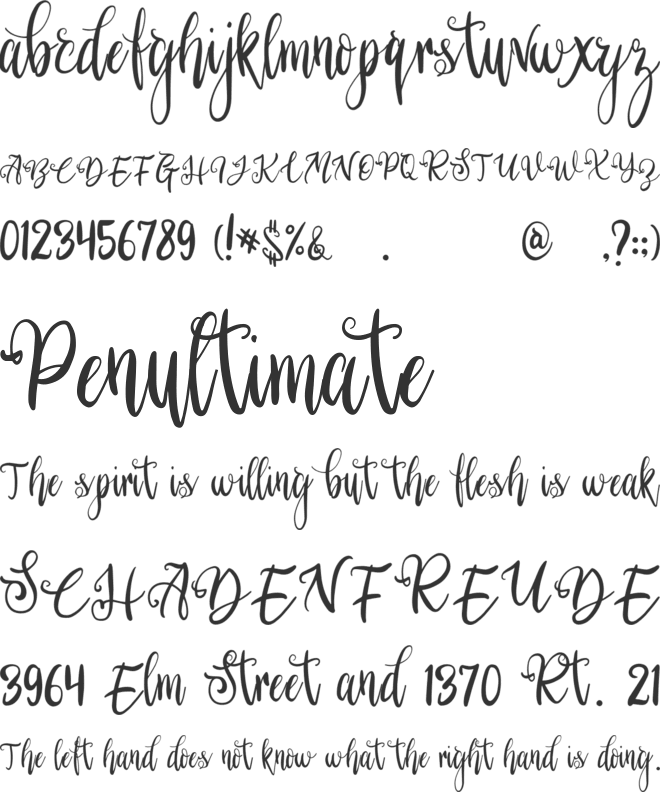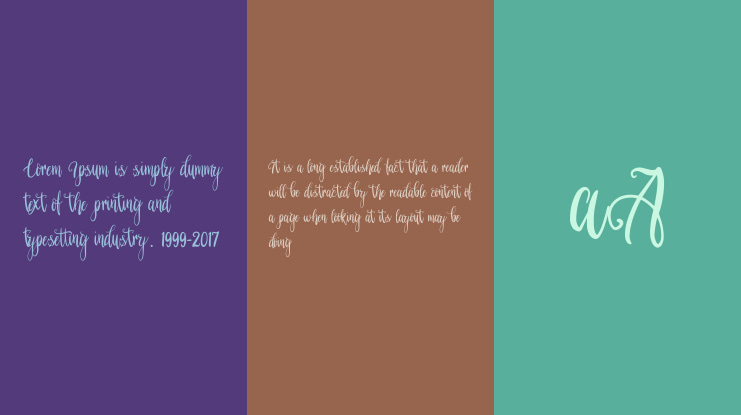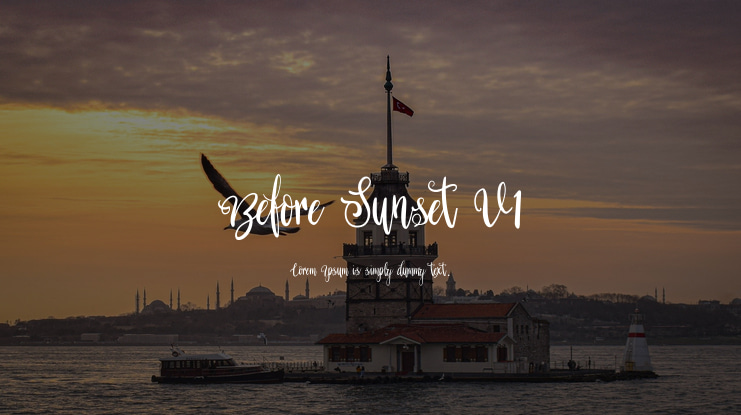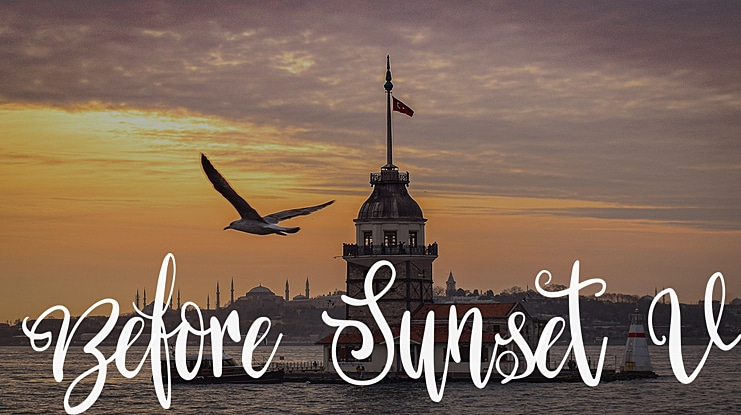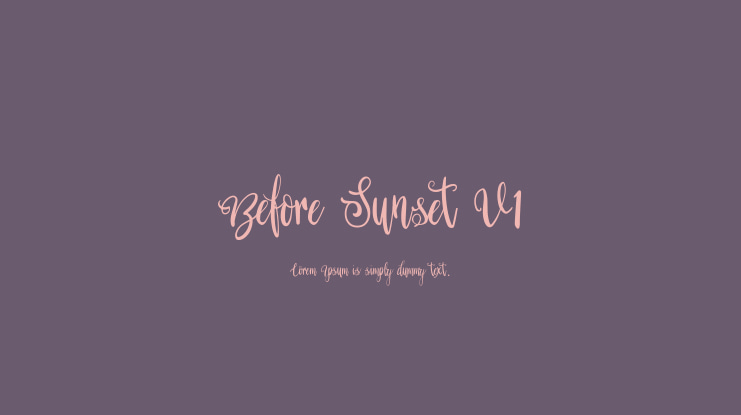
Before Sunset V1 Font
Before Sunset is a cool handwriting script fonts that is suitable for every craft projects such as print out, cricuts, embroidery, and many more.